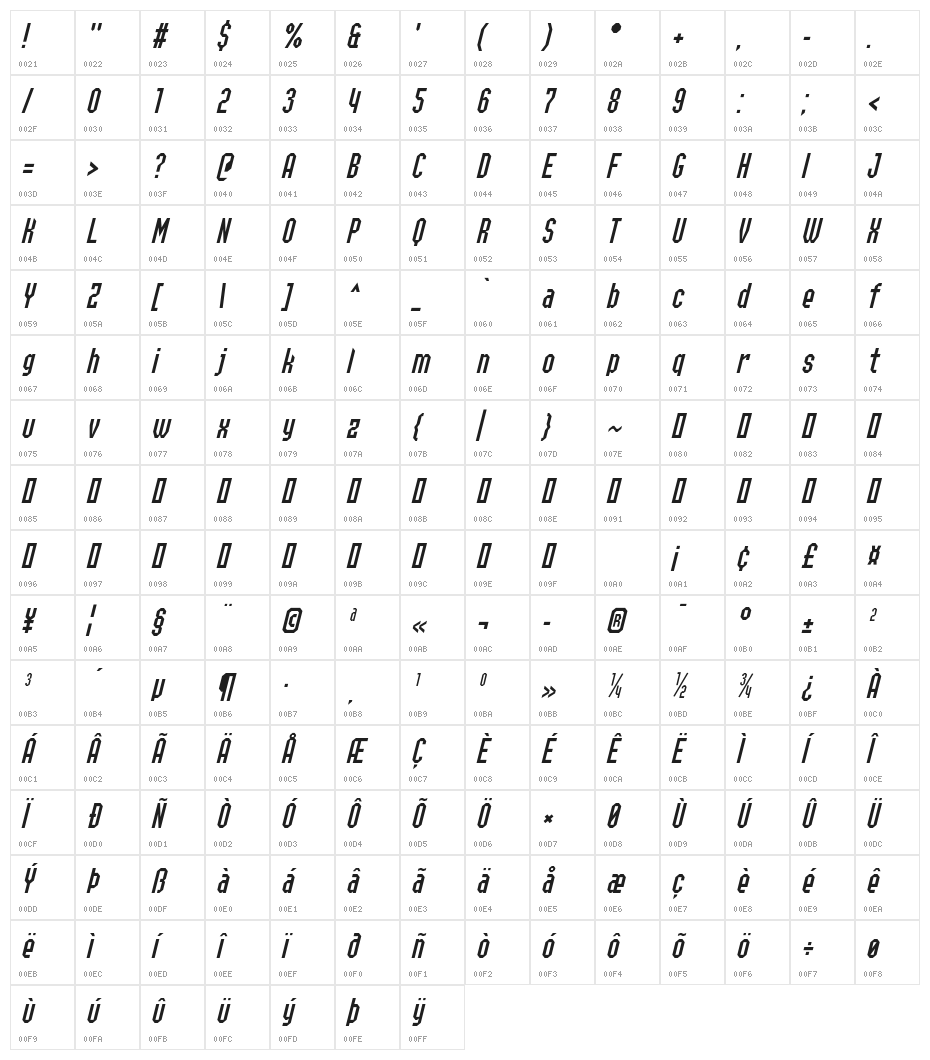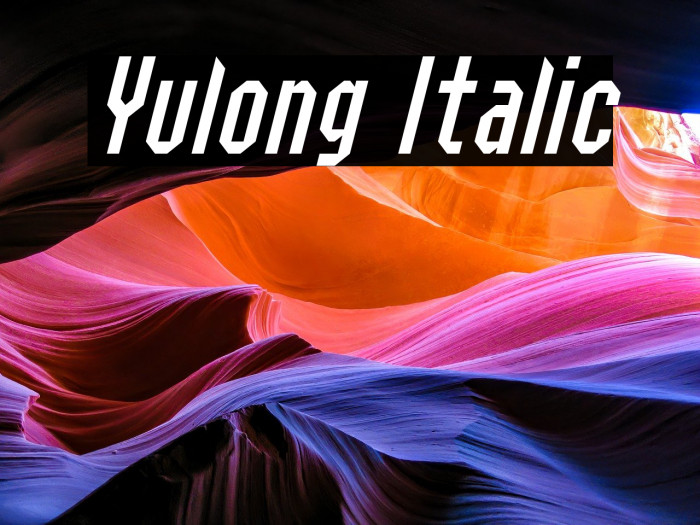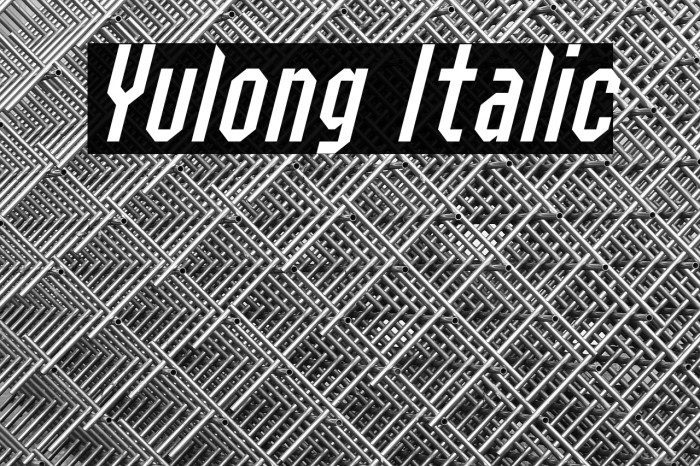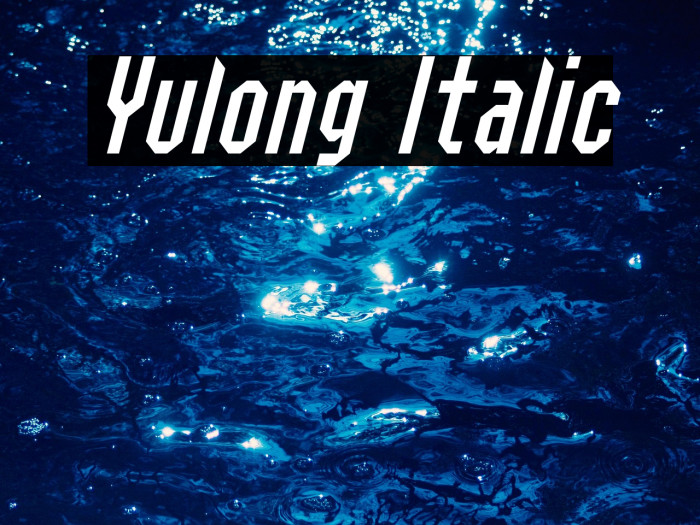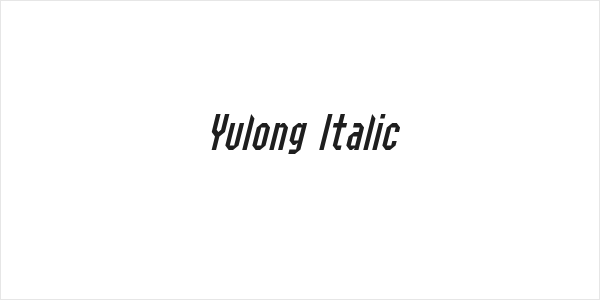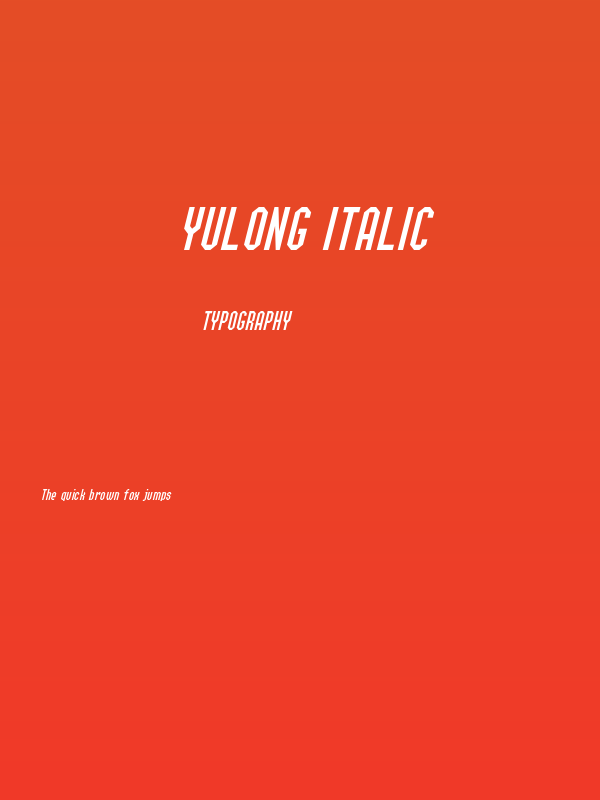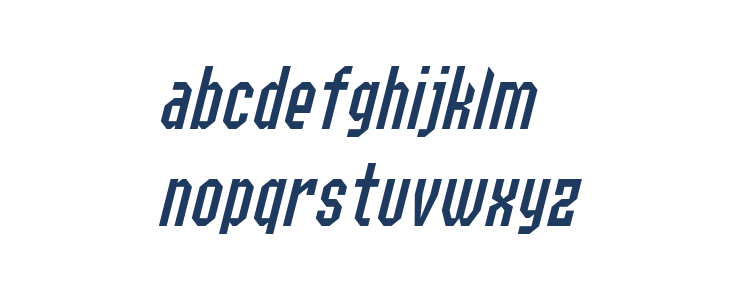
Yulong Italic Font
Yulong Italic Description
This font features a bold, italicized style with a modern and edgy appearance. The characters are slightly condensed, giving them a sleek and streamlined look. The angular design of the letters adds a dynamic and energetic feel, making it suitable for attention-grabbing headlines or titles. The uppercase and lowercase letters maintain a consistent style, while the numbers and special characters complement the overall aesthetic. The font's boldness and italic slant contribute to its distinctive and impactful presence.